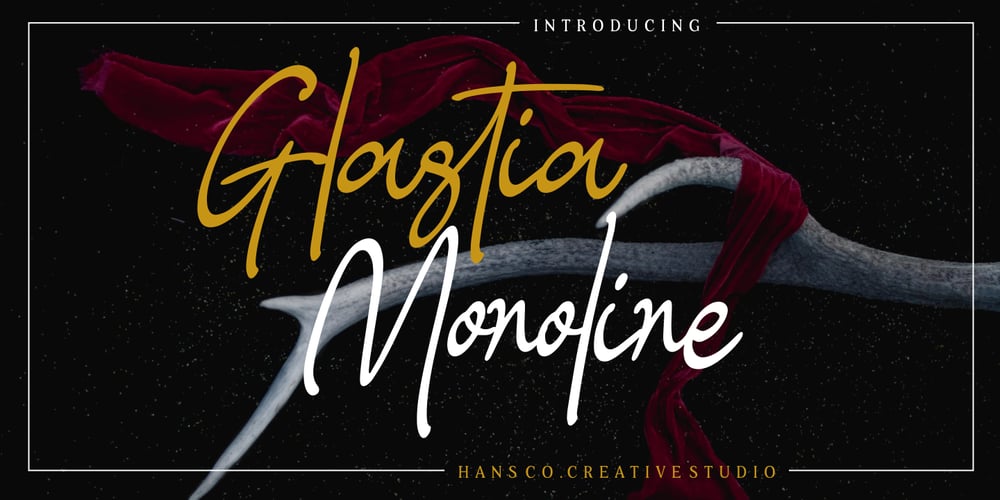
Glastia Monoline Font Family was designed by Burhan Afif and published by HansCo. Glastia Monoline contains 1 styles and family package options. Glastia Monoline Font is an elegant handwritten signature. I made Glastia Monoline font inspired by the concept of classic calligraphy and made it into a modern yet clean style. I also added some ligatures and alternatives swashes that are very interesting when applied. This font is perfect for creating signature logos or just watermarks for your photography studio or print templates like posters, branding, quotes, or anything else. Alternative and swash characters are also available. Very recommended to use in Adobe Illustrator, Adobe Photoshop, Adobe InDesign, CorelDraw.Enjoy!